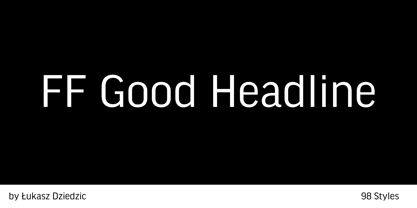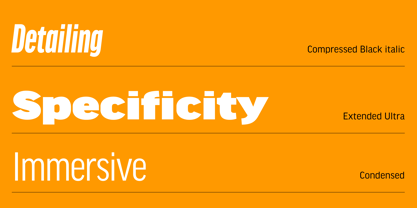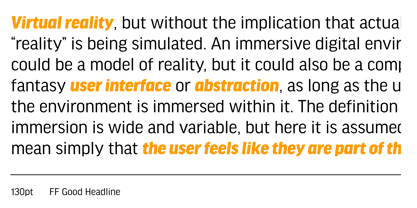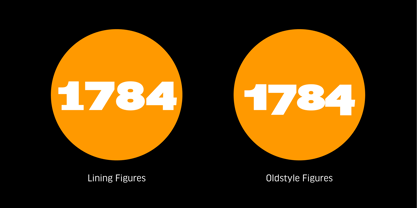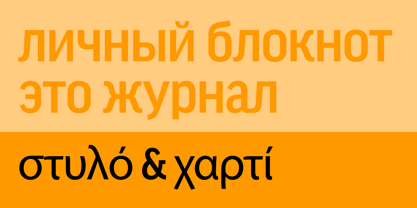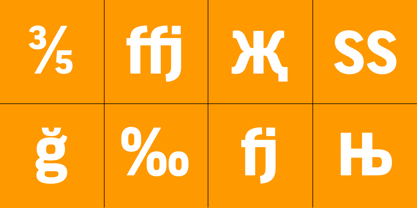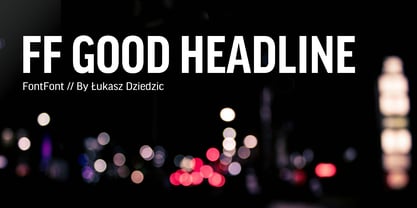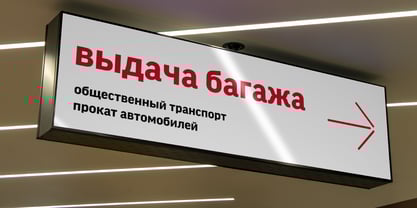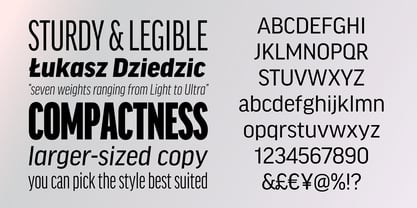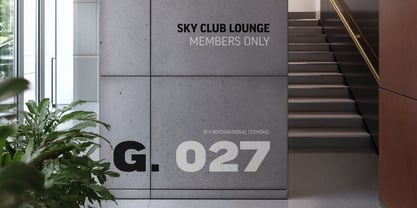
FF Good® Headline
von FontFont
Die Schriftfamilie FF Good Headline wurde von Łukasz Dziedzic entworfen und von FontFont veröffentlicht. FF Good Headline enthält 98 Stile und Familienpaketoptionen.
FF Good is a straight-sided sans serif in the American Gothic tradition, designed by Warsaw-based Łukasz Dziedzic. Despite having something of an “old-fashioned” heritage, FF Good feels new. Many customers agree: the sturdy, legible forms of FF Good have been put to good use in the Polish-language magazine ‘Komputer Swiat,’ the German and Russian edition of the celebrity tabloid OK!, and the new corporate design for the Associated Press.
Although initially released as a family of modest size, the typeface was fully overhauled in 2010, increasing it from nine styles to 30 styles, with an additional 30-style sibling for larger sizes, FF Good Headline. In 2014, the type system underwent additional expansion to become FontFont’s largest family ever with an incredible 196 total styles. This includes seven weights ranging from Light to Ultra, and an astonishing seven widths from Compressed to Extended for both FF Good and FF Good Headline, all with companion italics and small caps in both roman and italic. With its subtle weight and width graduation, it is the perfect companion for interface, editorial, and web designers. This allows the typographer to pick the style best suited to their layout.
As a contemporary competitor to classic American Gothic style typefaces—like Franklin Gothic, News Gothic, or Trade Gothic—it was necessary that an expanded FF Good also offers customers both Text and Display versions. The base FF Good fonts are mastered for text use, while FF Good Headline aims for maximum compactness. Its low cap height together with trimmed ascenders and descenders give punch to headlines and larger-sized copy in publications such as newspapers, magazines, and blogs.
Designer: Łukasz Dziedzic